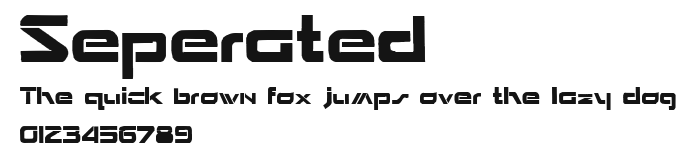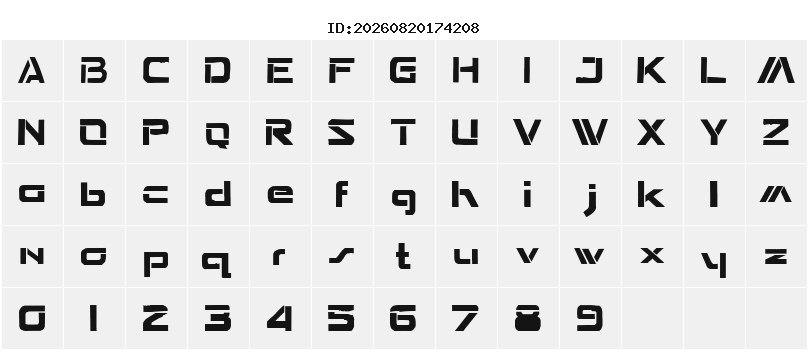
• Font Name: Seperated
• Full Font Name: Seperated
• PostScript Name: Seperated
Seperated.ttf is a modern, elegant sans-serif font designed for ultimate readability and visual harmony. Perfect for branding, headlines, web design, and print materials.